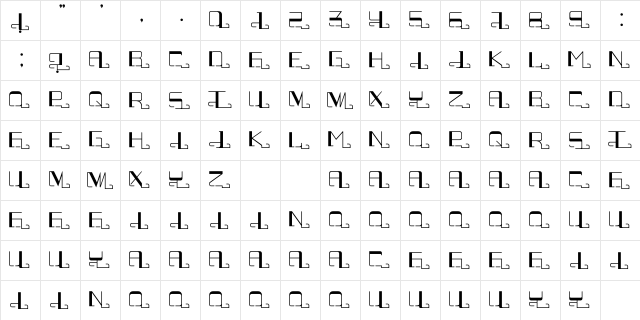
Puzzelle Tr Regular
Design Context for Puzzelle Tr Typeface
Puzzelle Tr is a composed and adaptable typeface that performs quietly and consistently across a wide range of design contexts.